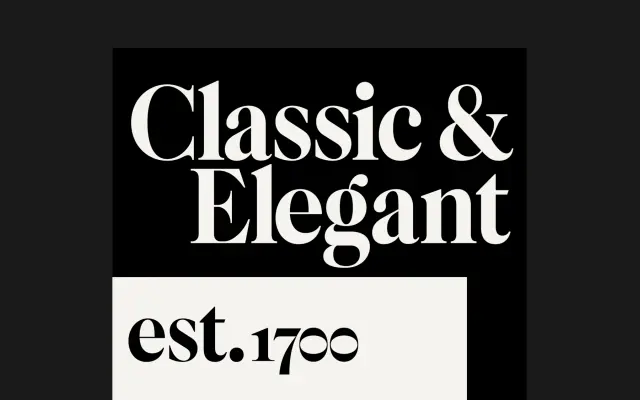
F37 Caslon Text
F37 Caslon Text specimen from F37 Foundry
The text optical cut of F37 Caslon, tuned for running body copy across upright and Condensed widths.
A text optical Caslon. Sixteen styles span four weights from Regular to ExtraBold with matching italics, plus a Condensed cut with its own italics, all drawn for legibility at body sizes. Slightly heavier strokes, more open spacing and softer contrast than the standard F37 Caslon, which lets it carry long-form editorial and book settings. Sits in the middle of the F37 Caslon optical system, between F37 Caslon Text for body and F37 Caslon Hairline for very large display.
F37 position F37 Caslon Text as the text optical cut within the F37 Caslon system. Proportions, spacing and contrast are tuned for running body copy, with the same width and weight structure as the display Caslon.